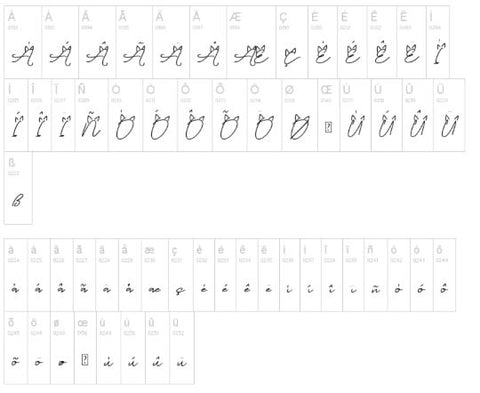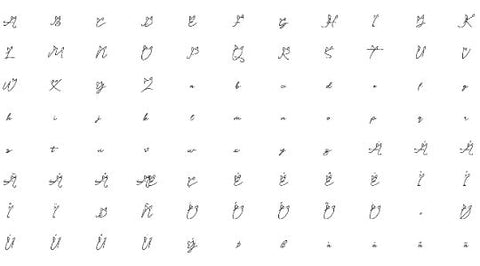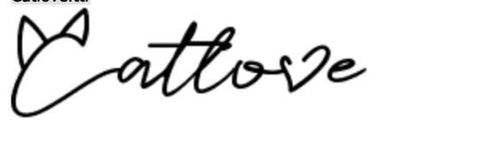
It's a cute Cat lover font.
The Most Adorable Cat-inspired Font, full Zip Folder Download
Perfect decals, Mugs, T-shirts hoodies, canvas tote bags, Wedding invites, Cards, Tumblers, and many more handmade items.
Digital font, Font download, Calligraphy font, Swirly Font, Feminine font, Cricut, Script Font, Wedding font, Modern font, perfect for weddings, mothers Day, Love letters, and much much more